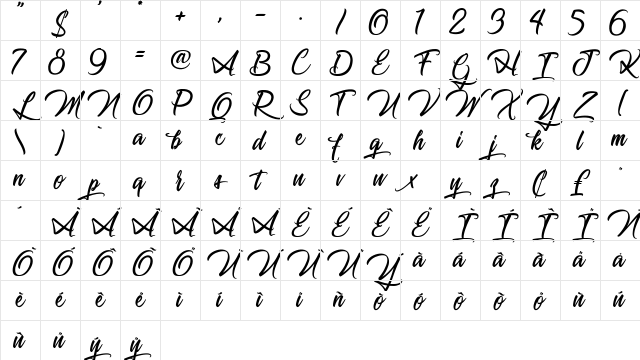
Journey to Thailand Light Regular
Foundry: Typhoon Type - Suthi Srisopha
Designer: Typhoon Type - Suthi Srisopha
Design Context for Journey to Thailand Light
Journey to Thailand Light is a composed and adaptable typeface that performs quietly and consistently across a wide range of design contexts. Its slender proportions lend an understated elegance to any composition.